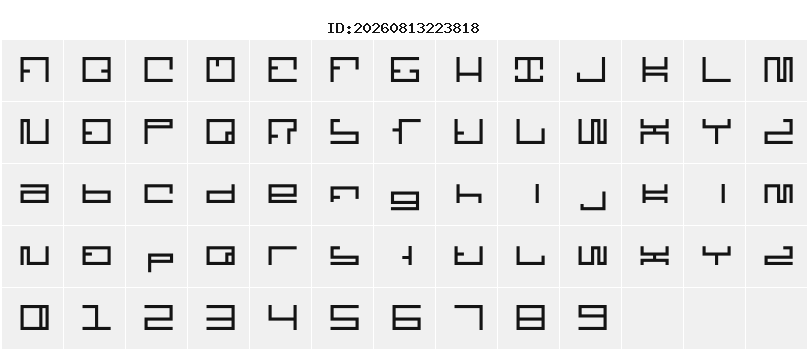
silence process  Preview
• Font Name: silence process
About silence process .ttf
silence process .ttf is a modern, elegant sans-serif font designed for ultimate readability and visual harmony. Perfect for branding, headlines, web design, and print materials.